Walmart has decided to kickstart 2025 with one of the first big brand refreshments of the year. A (literal) blueprint when it comes to hypermarkets that hadn’t changed their logo since 2008. Naturally, their new image was met with mixed reactions, but after looking into the reasoning behind the change, we have more of a positive take.
The Reasons Behind Walmart’s Rebranding
In 1950, Sam Walton purchased a small store in Arkansas to display his retail philosophy: low prices and high volume sales. While they grew rapidly on their first decade on the business, by the 90’s Walmart became the largest retailer in the U.S, and after it’s expansion to other countries, it is one of the biggest retail chains in the entire world. The business extends, as does their commitment to affordability and reliance on a pleasant shopping that saves time for both staff and customers.
Walmart Creative Studio, the in-house creative agency for Walmart, partnered with JKR Global to craft a rebranding that evolves to match the growth of Walmart. While they remain loyal to their grassroots origins, their offer has expanded into digital offerings, health services and more, and they want to stay updated to the needs and preferences of the customers of today and tomorrow, reinforcing credibility, connection and dynamism.
Redrawing the Spark
Since its introduction in the 2008 Walmart logo, the spark has been a vital resource in the visual identity. The rework of this symbol makes it less rigid, basing the construction on circular endpoints and giving the six “Sparklets” a curvy vibe. While it already appeared alone in some cases, it becomes more relevant in this rebrand, encouraging the use of the spark as a main symbol in a variety of touchpoints.
A Typographic Homage
The new wordmark for Walmart actually draws inspiration from the iconic cap that Sam Walton wore for the cover of his biography “Made in America”. It’s actually a callback to the begginings of the brand, specifically the look it had between the 70’s and 90’s, where “WALMART” was displayed in all caps, in a strong sans serif font with very little kerning, giving a stronger, more masculine vibe, some values that were drafted with the 2008 rebrand.
Besides the wordmark, Sam Walton’s cap inspired a whole custom family named “Everyday Sans” that includes a variety of weights and styles, including a headline version for special creative uses, a mono version for code and data tables, and an UI version with added functionalities for Walmart’s website and app.
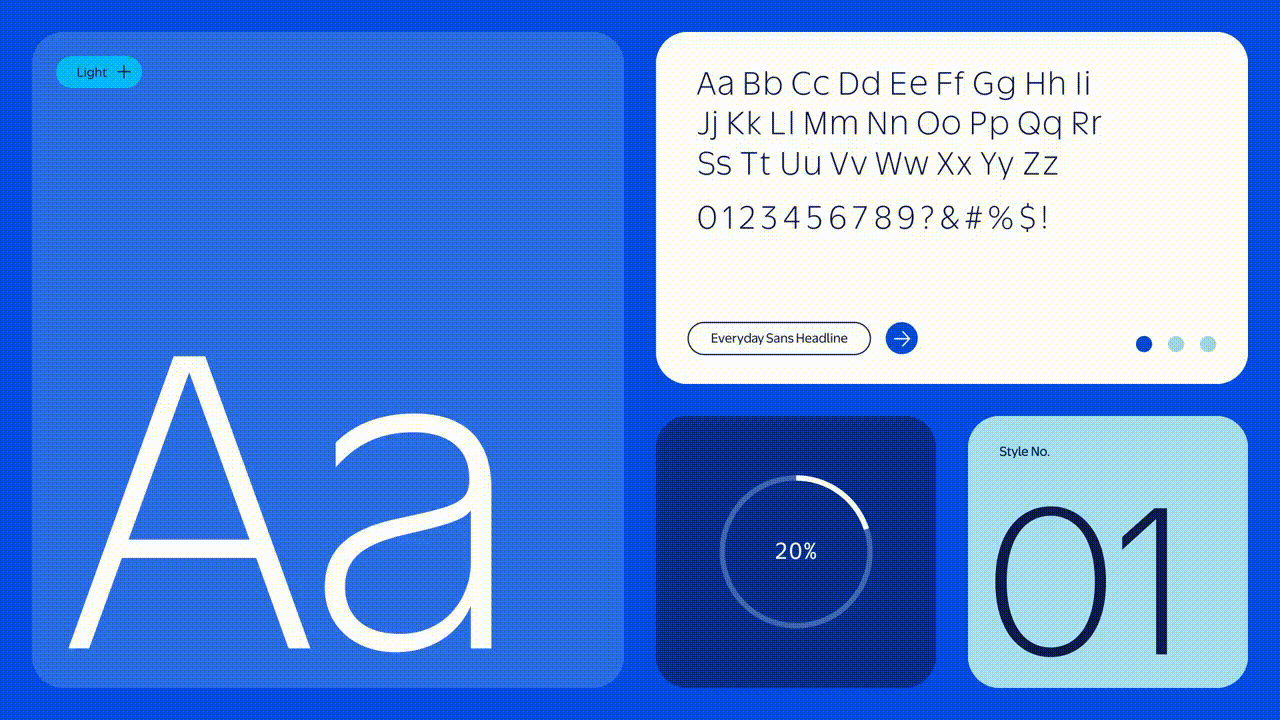
A Vibrant Route
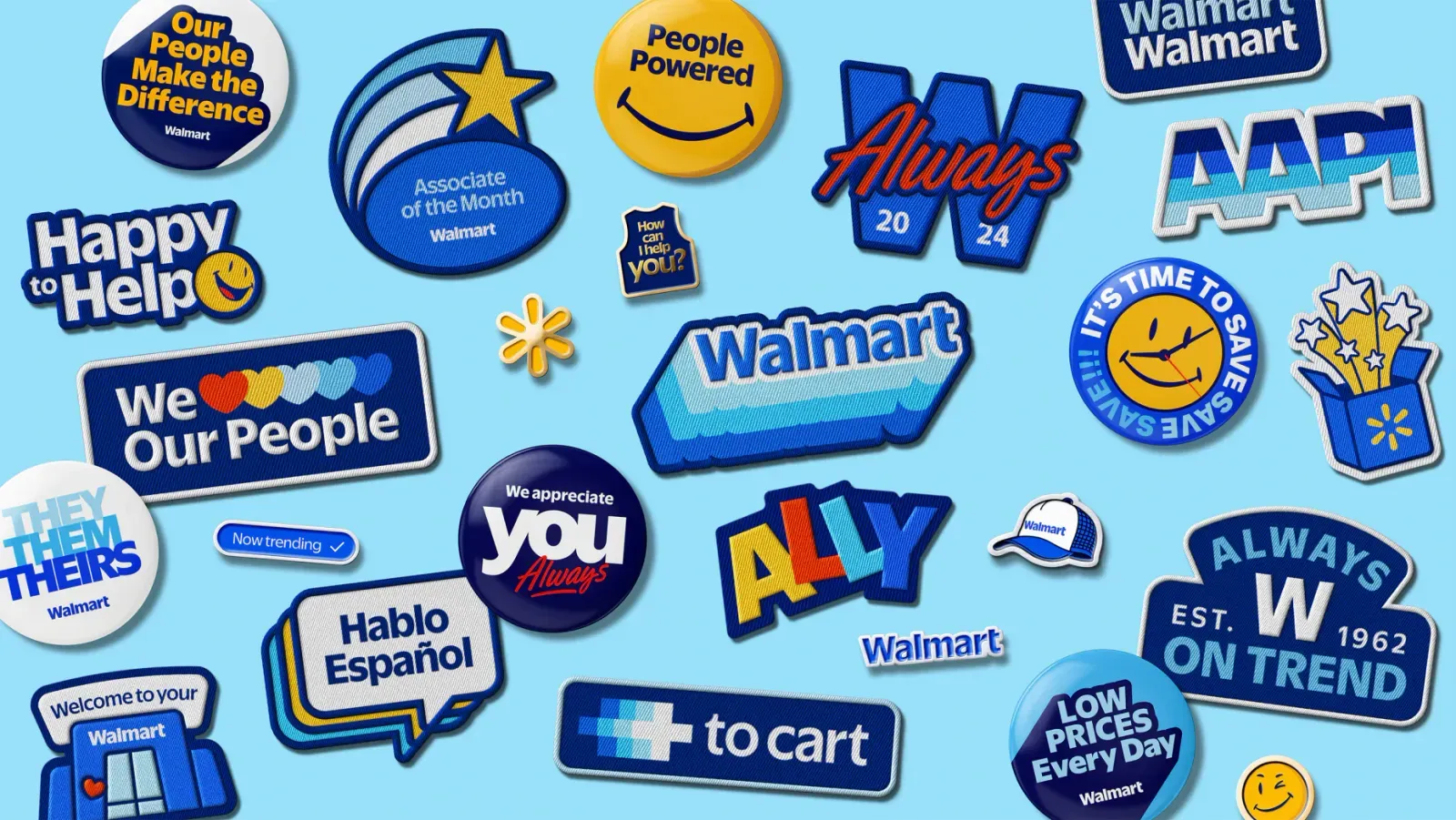
Walmart’s main colors are very well positioned already, so they were clever not to change the combination. “True Blue” and “Spark Yellow” gained intensity, giving the whole brand a stronger look without losing their stablished identity. They expanded their palette with 3 accent blues to widen their options while making content and applying the brand to different touchpoints.
How did the crowd take it?
When i heard that the rebranding was getting mixed reviews, my first thought was that customers were resistant to another clean sans-serif look, a trend that dominated the visual realm for quite a while, but to my surprise people were mad because the new wordmark looked “too similar” to the previous one, many comments questioned that Walmart spent millions of dollars to look the same as before. Probably most users didn’t look through the entire thing, and started bashing the project only based on the spark redraw.
Maybe some recent rebranding cases (like Jaguar, that also received mostly negative feedback) has us accostumed to the idea that changing your visual identity has to be shocking and dramatic, but in some cases rebrandings can also be about slight adjustments, working around already successful elements to expand their applications. Walmart was cautious to not screw up their visual positioning, also understanding that their public was probably not interested in a revolutionary twist for a brand that integrates steadily with their every-day routine.
There seems to be a change of paths wordwide. Specifically in America, the rise of conservative ideology doesn’t only affect politics, it also impacts aesthetic trends and naturally the way brands present themselves. In the upcoming years, we’ll probably see a lot of brands falling into americana or western aesthetics, aligning themselves with the new status-quo.
Whatever your opinion might be on this rebranding, it’s good news that we remain curious and vocal about the decisions brands make. Healthy debates about our preferences as customers can help create awareness, grounding concepts that sometimes feel too airy and disconnected from reality.